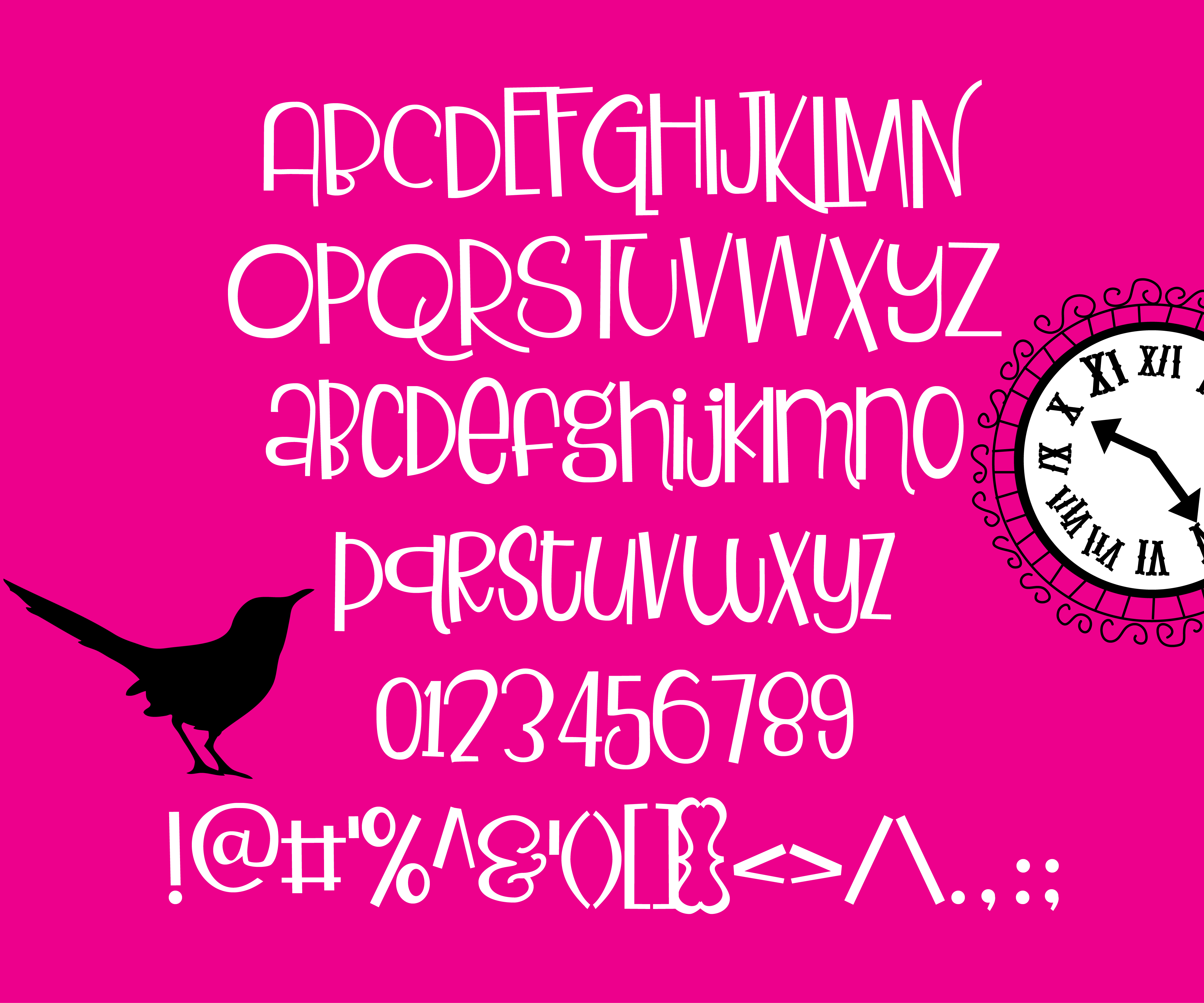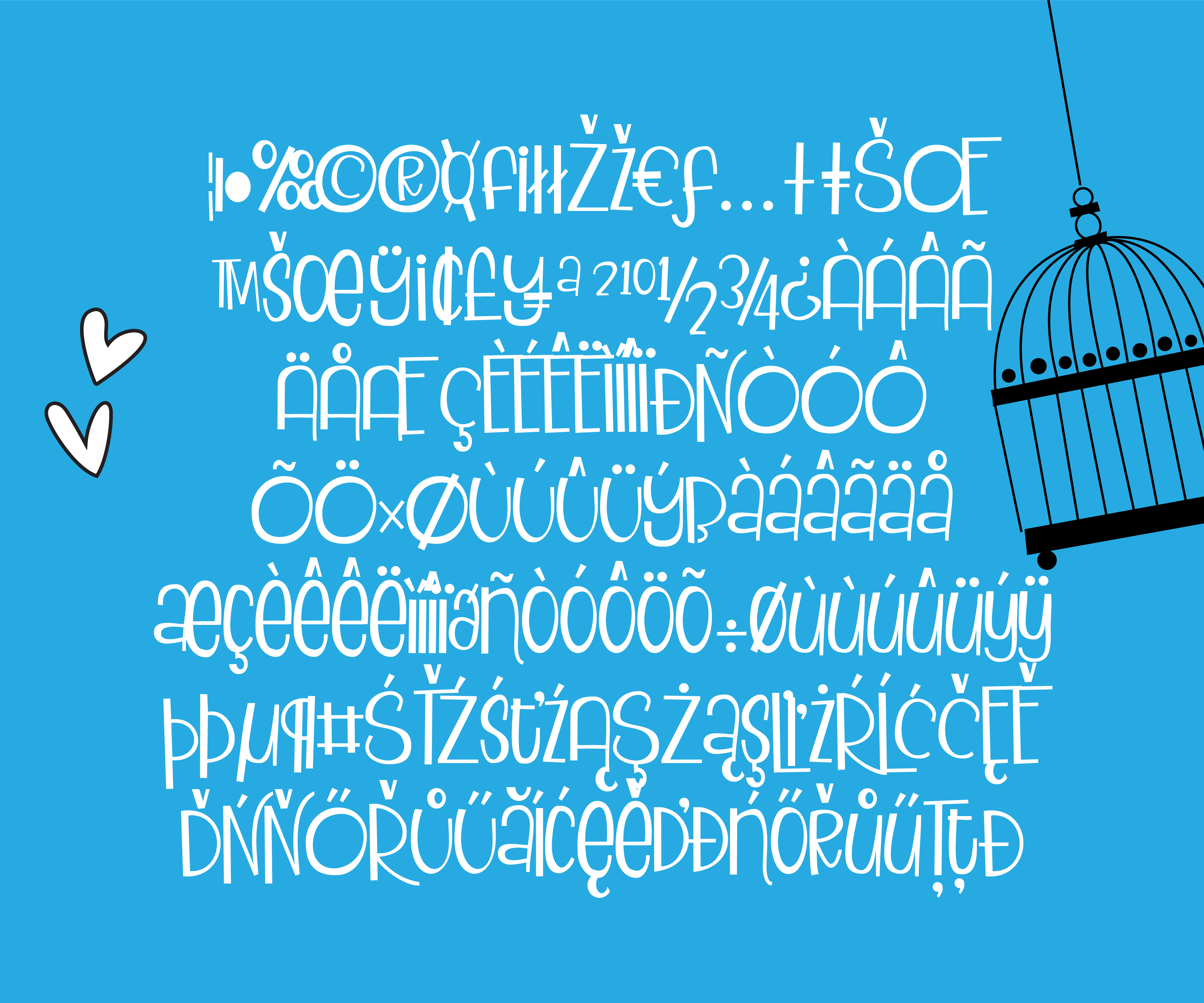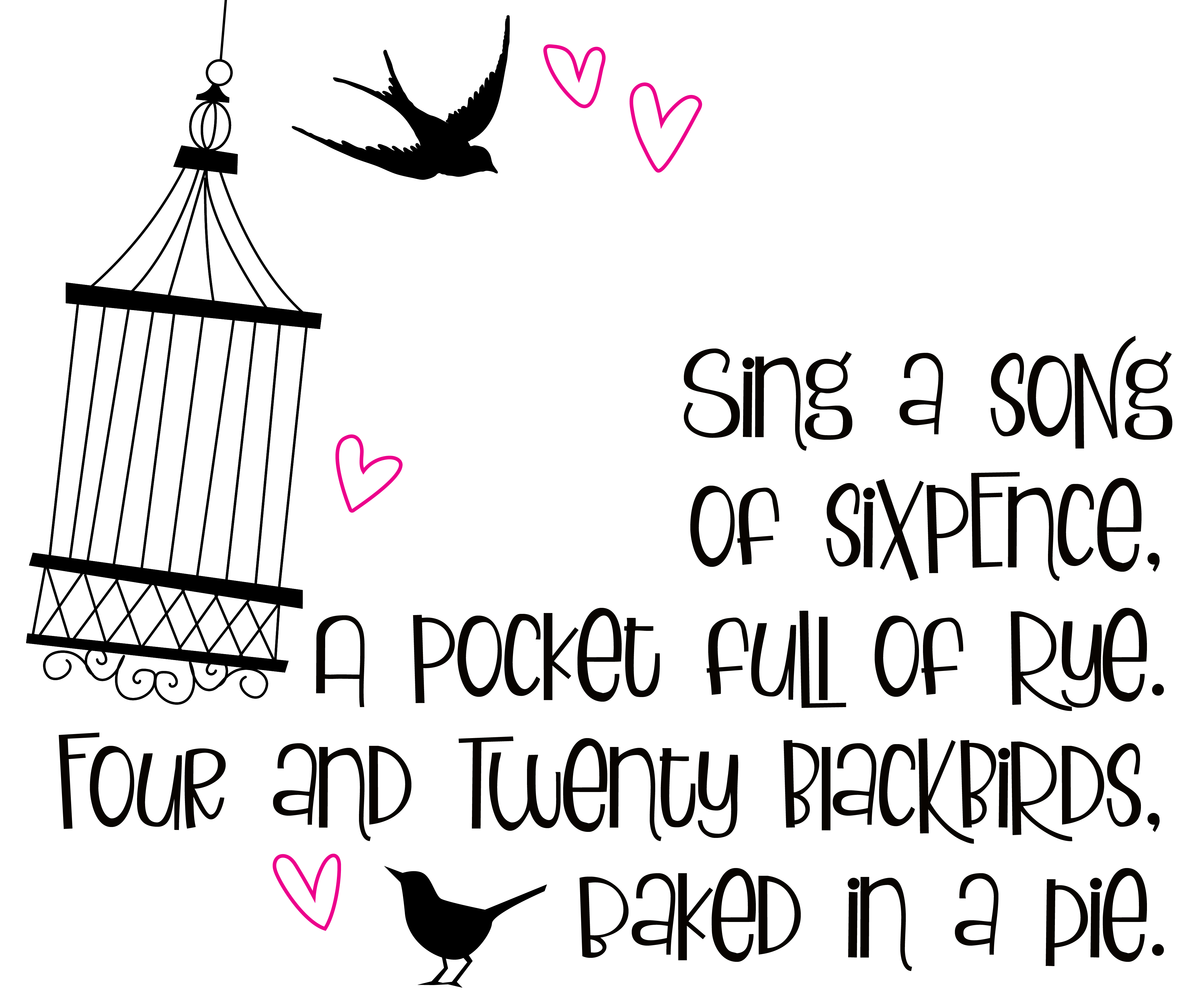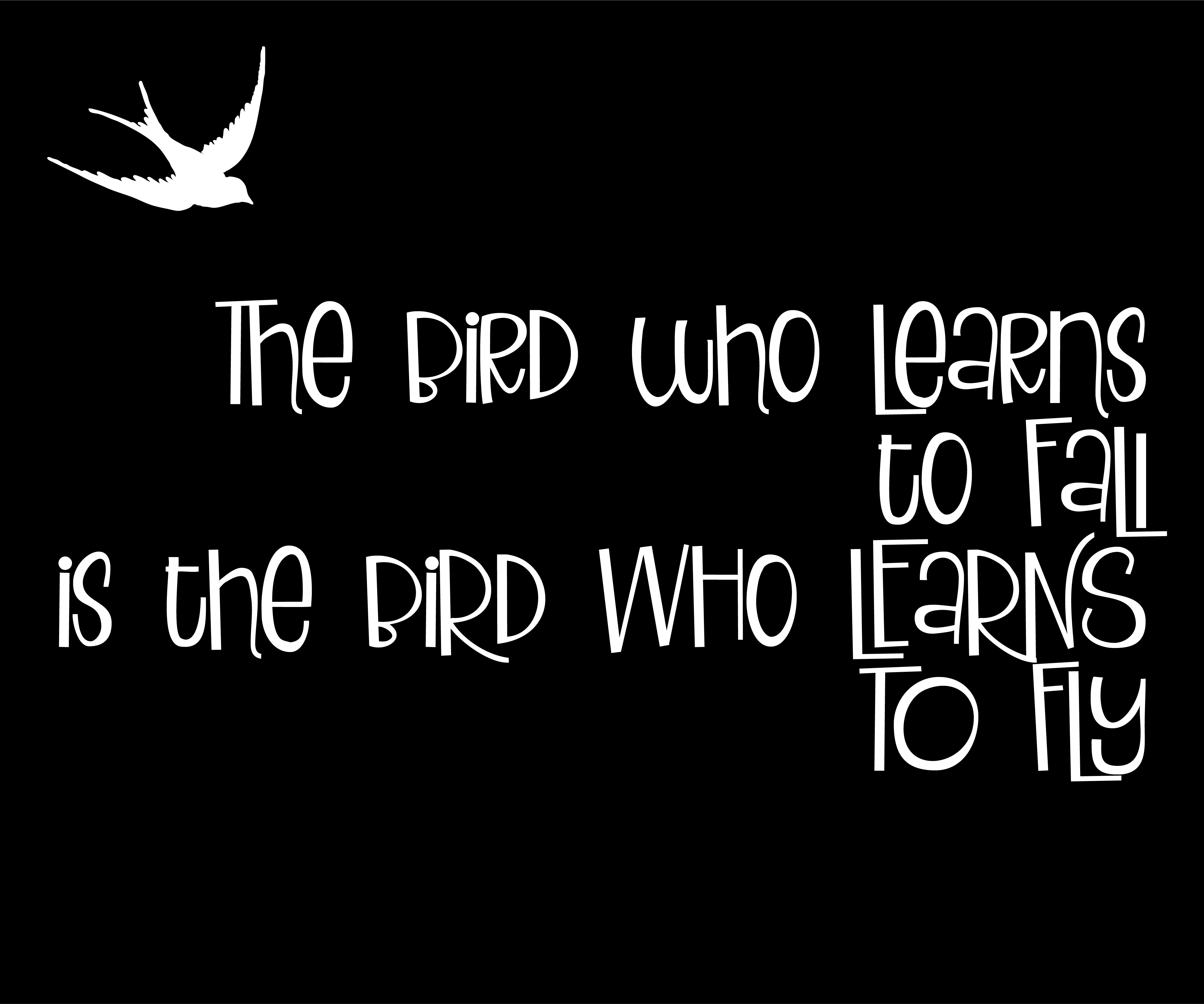
The Blackbird Pie Font: A Delightful Hand-Crafted Addition to Your Design Toolbox
I still remember the design project that led me to discover the Blackbird Pie font. I was working on a whimsical craft project for a client who wanted a playful, hand-written look for their branding. As I scoured the internet for the perfect font, I stumbled upon Blackbird Pie – and it instantly stole my heart! The adorable, hand-crafted letters that interlock around others were exactly what I needed to bring my client’s vision to life.
An Honest Review: The Good and the Quirky
What I Love About Blackbird Pie ✨
- ✅ Its unique, interlocking letters create a beautiful, hand-written look that’s perfect for crafty projects.
- ✅ The font is highly versatile and works well for mixing cases to achieve creative looks.
- ✅ It’s a sans-serif font, making it easy to read and pair with other fonts.
- ✅ The font is perfect for adding a personal touch to designs, making them stand out from the crowd.
- ⚠️ As with any handwritten font, some letters may not perfectly match or align, which can be adjusted with kerning.
- ⚠️ The interlocking feature might not work seamlessly with all letter combinations, requiring manual adjustment.
The Story Behind Blackbird Pie: A Font Born from Passion
The creator of Blackbird Pie, a passionate typographer, was inspired by traditional hand-lettering techniques. They aimed to craft a font that would bring a touch of whimsy and personality to designs. With Blackbird Pie, they succeeded in creating a unique, hand-crafted font that’s perfect for crafty projects and designs that require a personal touch.
| Font Name | Blackbird Pie Font |
| Author | Illustration Ink |
Q: Is Blackbird Pie suitable for body text?
A: While Blackbird Pie is a beautiful font, it’s best suited for headlines, titles, or short paragraphs. Its unique, interlocking letters may not be ideal for long-form body text.
Q: Does Blackbird Pie support OpenType features?
A: Yes, Blackbird Pie supports OpenType features like stylistic alternates and glyphs. You can access these features in compatible design software like Adobe Photoshop or Illustrator.